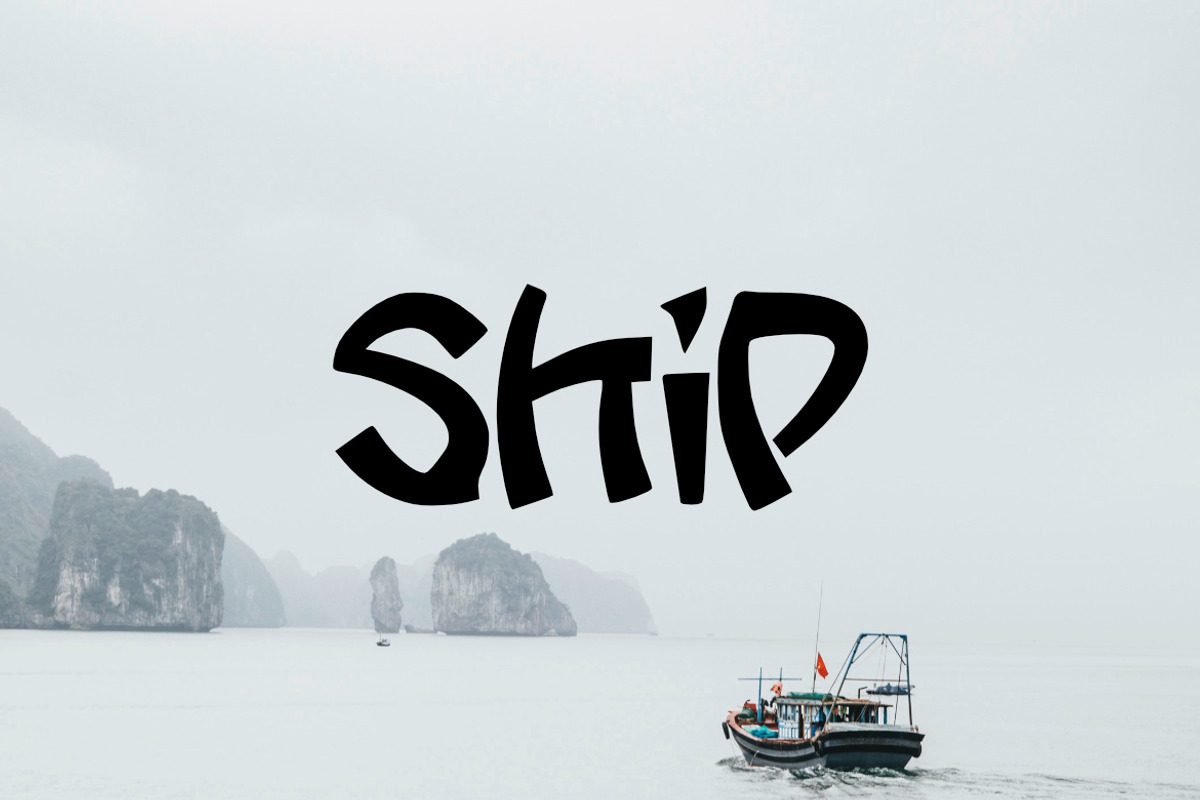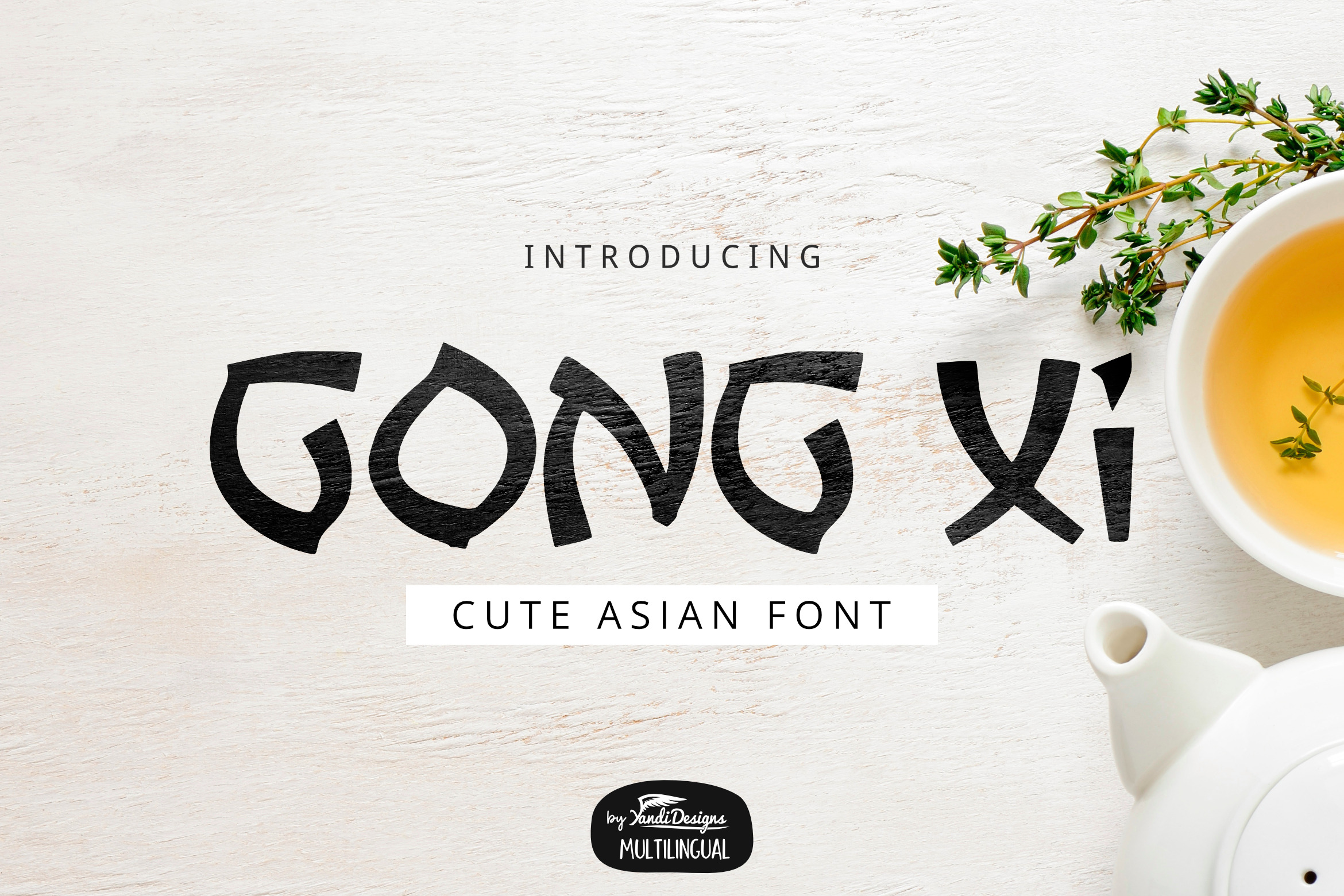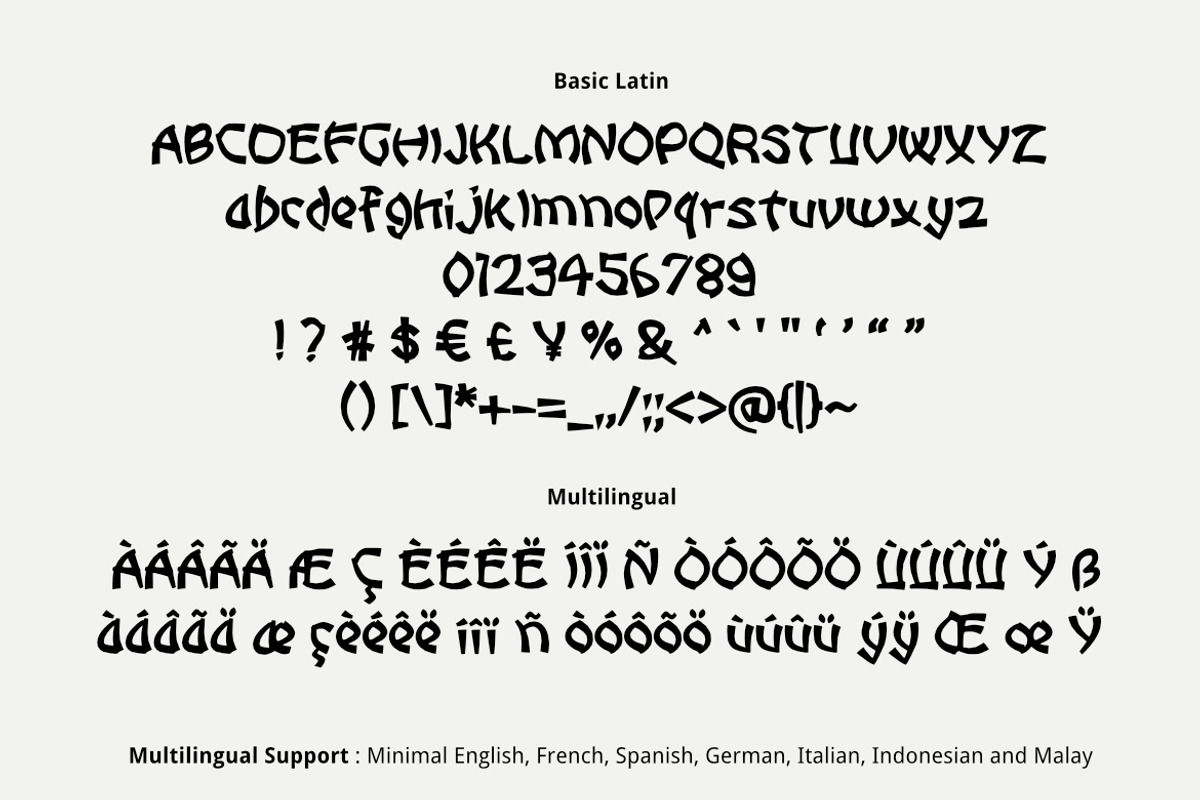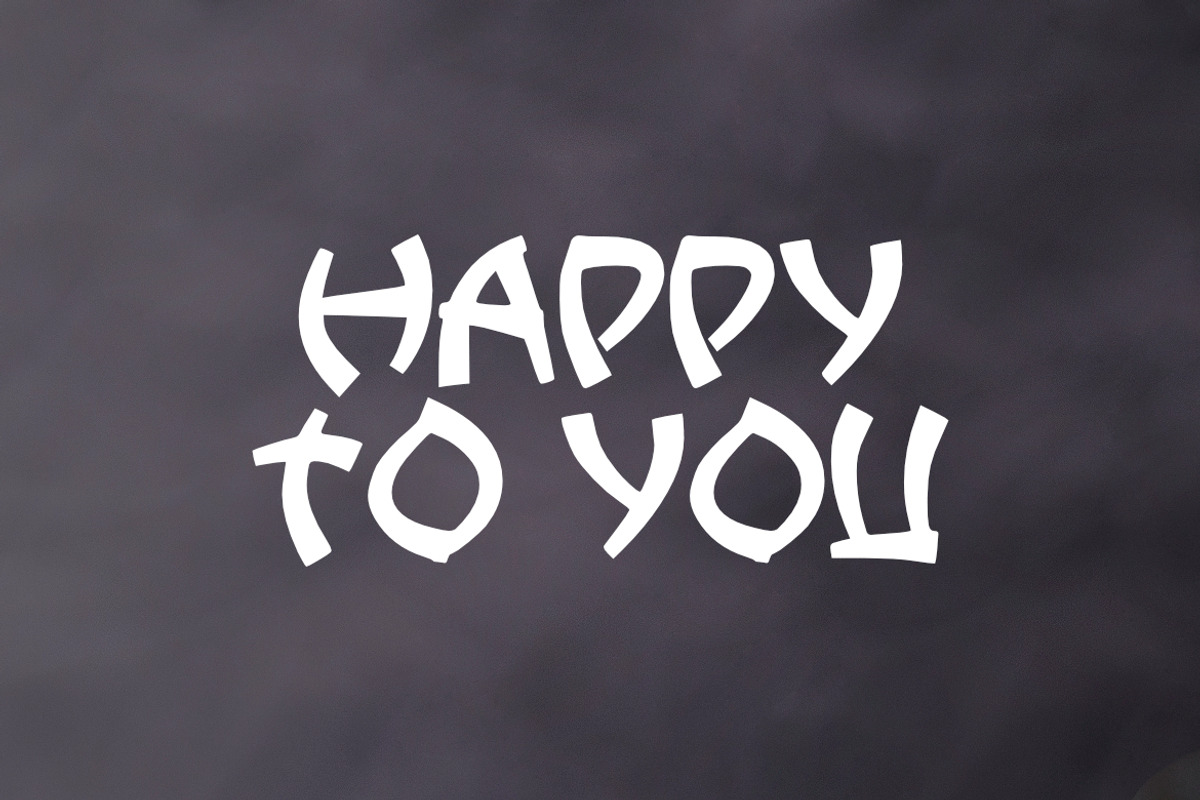
Gong Xi Asian Font
Gong Xi is simple cute playful multipurpose handmade asian font, suitable for many project children book, quotes, logo , heading , title etc.